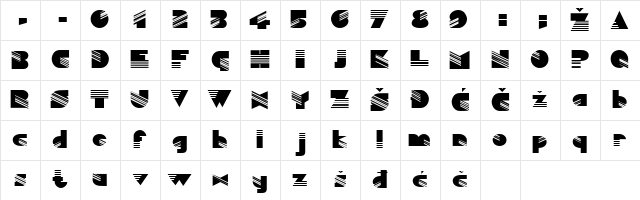
Santa-Fe Regular
Design Context for Santa-Fe
Santa-Fe is a composed and adaptable typeface that performs quietly and consistently across a wide range of design contexts.